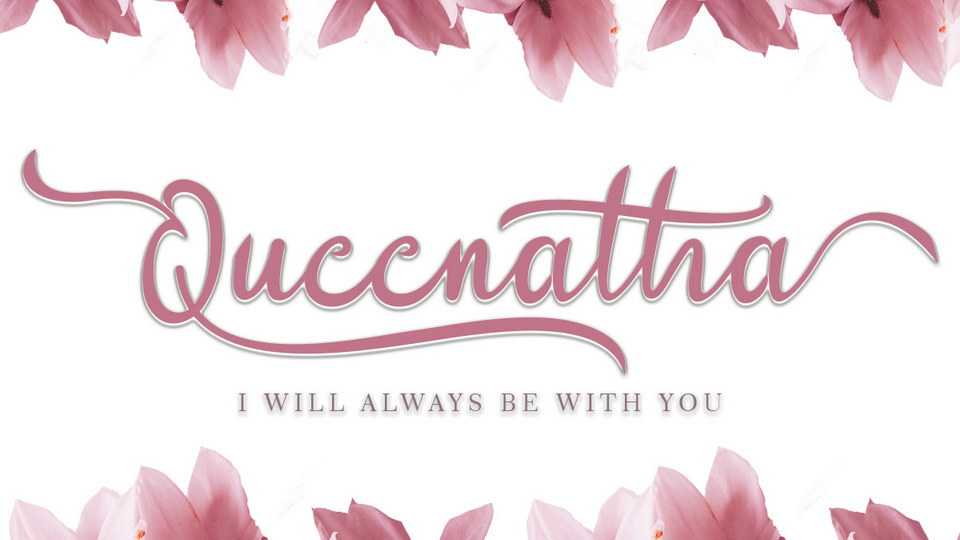
Download Queenatha font, a very beautiful and elegant typeface for all types of work. Queenatha is very pretty and is able to beautify all your work.